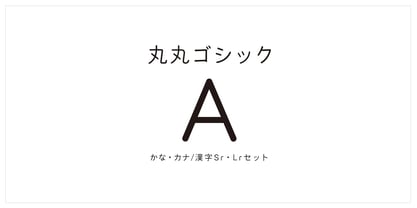
MaruMaru Gothic A_Sr
by Kinuta Font Factory
The MaruMaru Gothic A_Sr Font Family was designed by and published by Kinuta Font Factory. MaruMaru Gothic A_Sr contains 1 styles. More about this family
There are two variations of Marumaru Gothic. Sr, with its small rounded corners, is precise, while Lr, with its large rounded corners, gives a generous, relaxed impression. The fun of the Kanji characters changing from one to the other is unparalleled. Enjoy the typography that changes with the text. There are three types of kana. Kana A is gentle, honest and energetic.
Experience the joy of using different kana characters. When you look at the characters, thoughts and ideas naturally come to mind. Why did it take this form? How would I do it? For example, the font “iroha gothic” from Kijima Type Foundry has 12 different kana characters.Just as there are “voice actors” who convey words through their voices, there should also be “character actors” who convey words through characters. This font was created with that idea in mind. Experience the unique charm of Japanese, which combines kanji and kana, through this font.The richness of language will surely uplift your spirit.